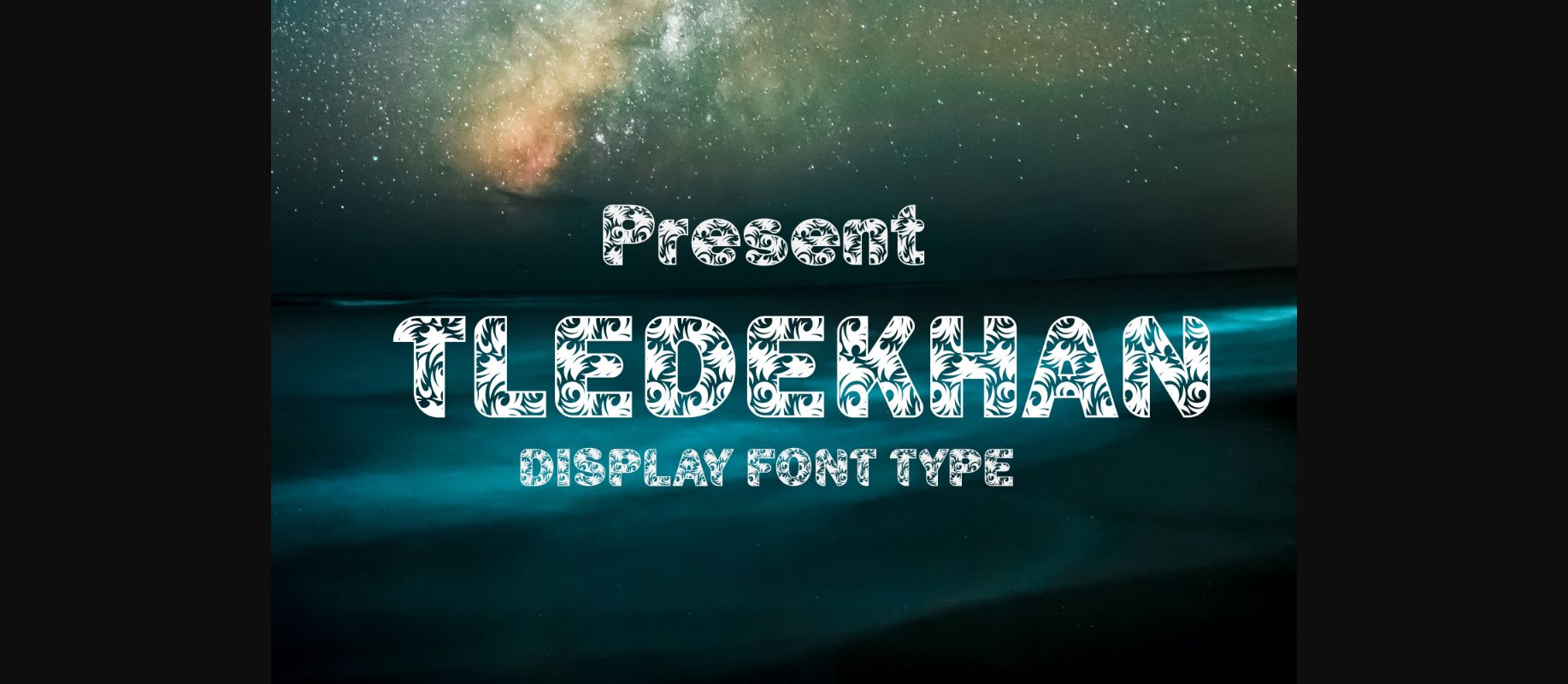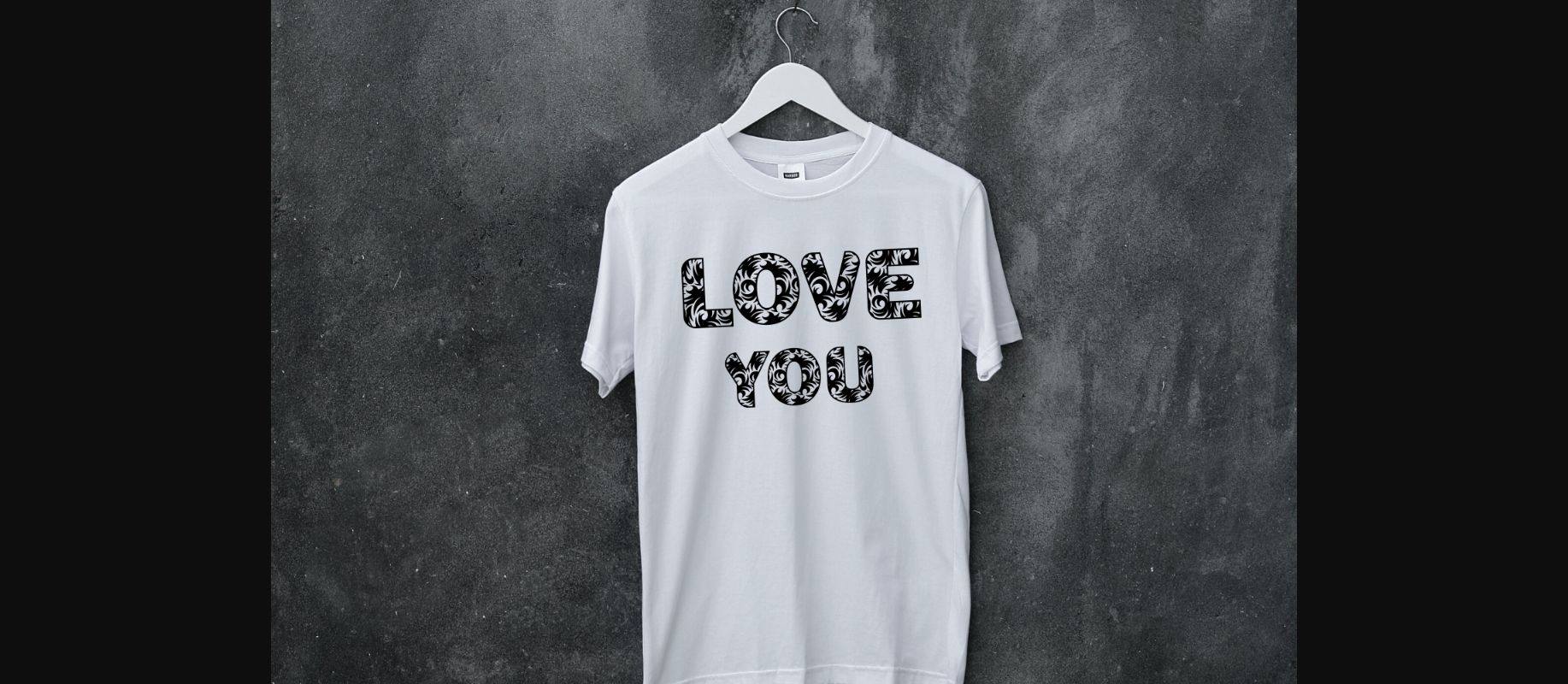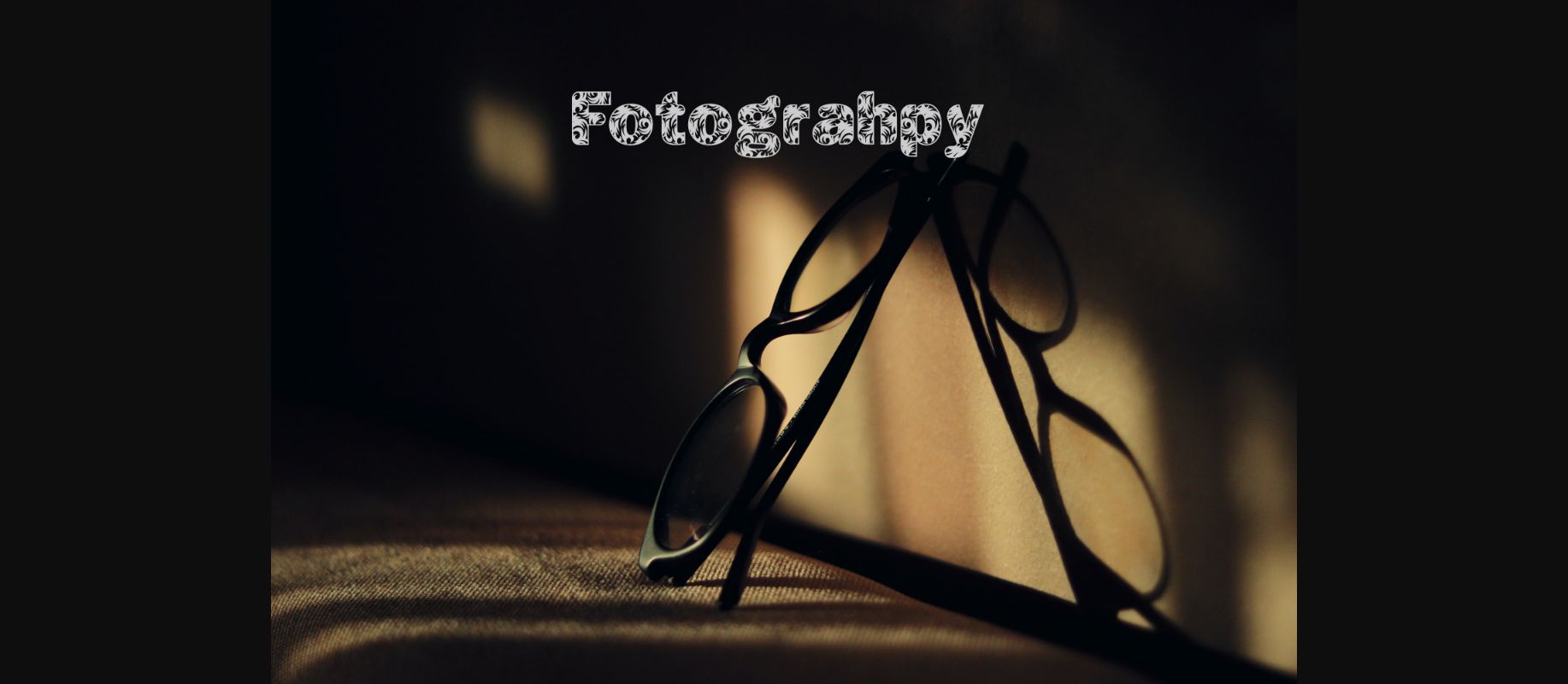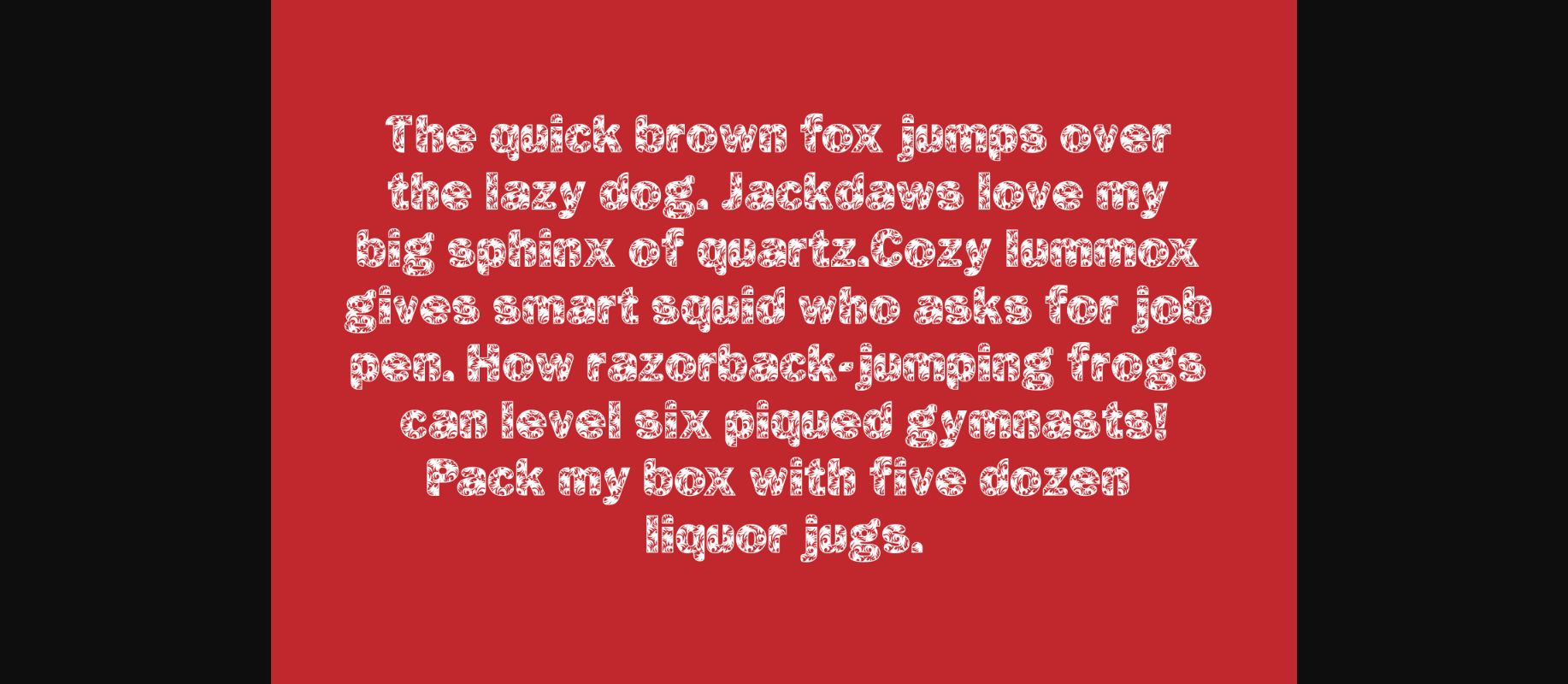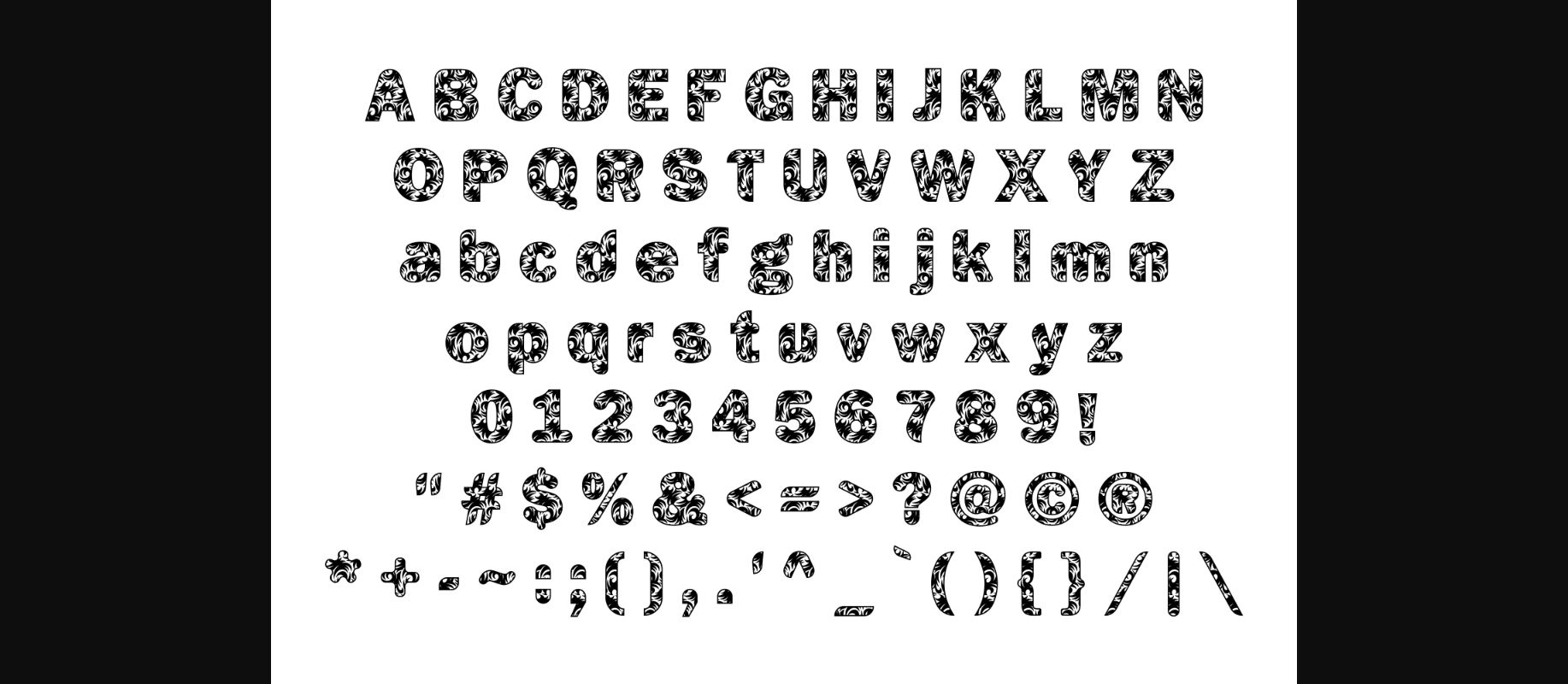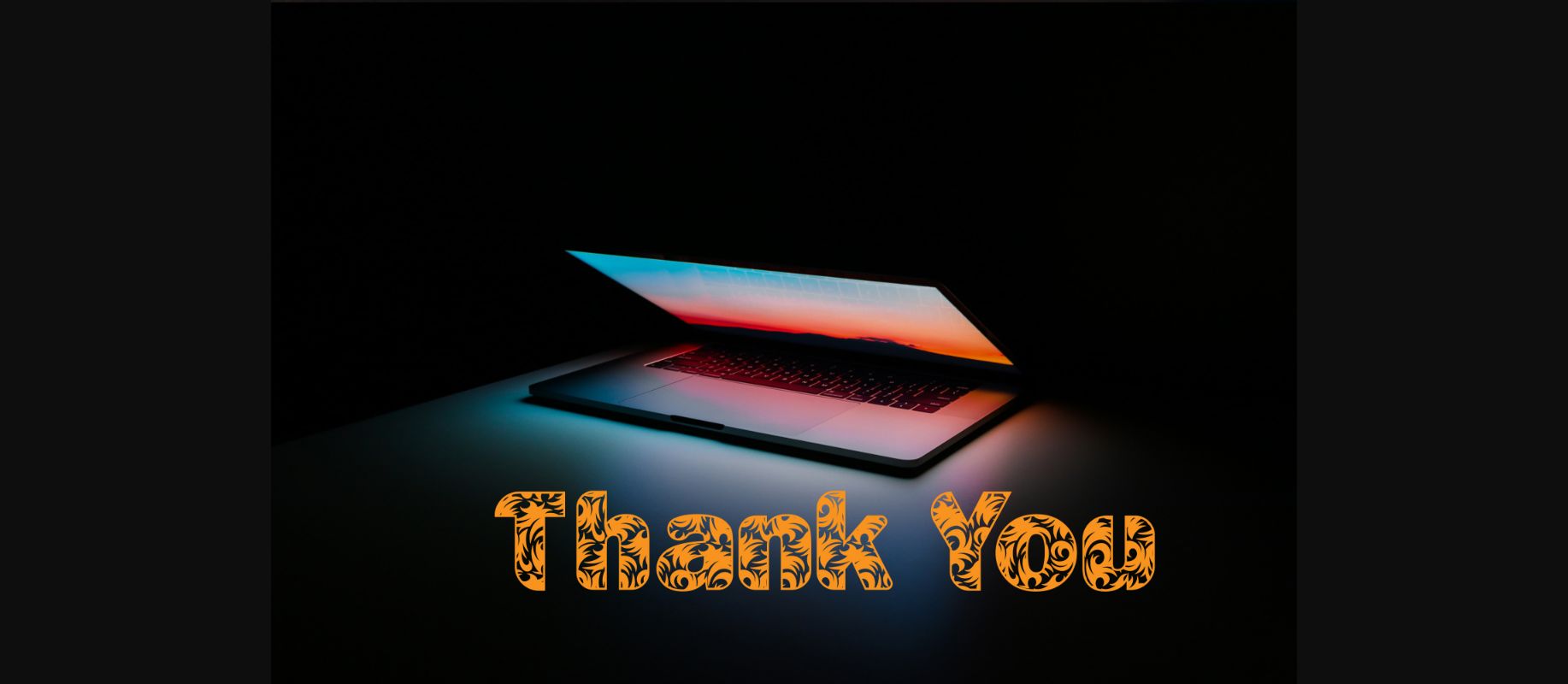
Tledekhan Font
About Tledekhan Font
Tledekhan is a bold decorative font that has a unique style to each letter. This font is suitable for designs that have artistic vibes and a modern style!